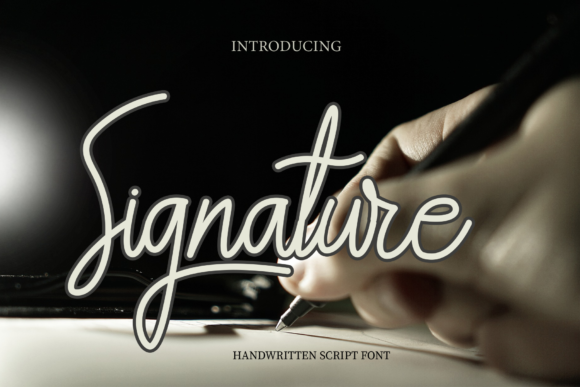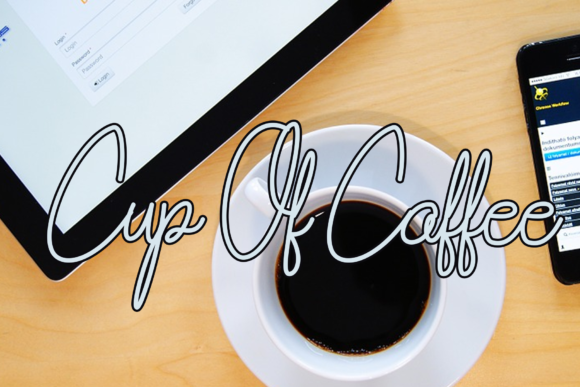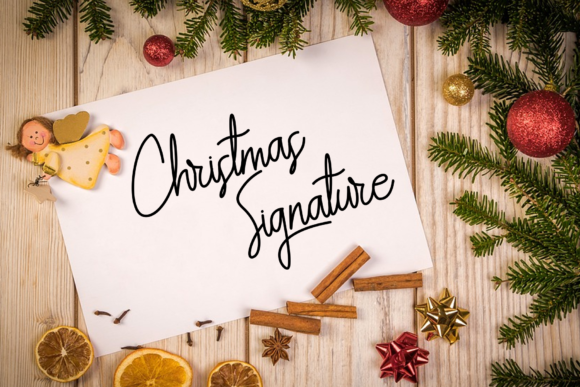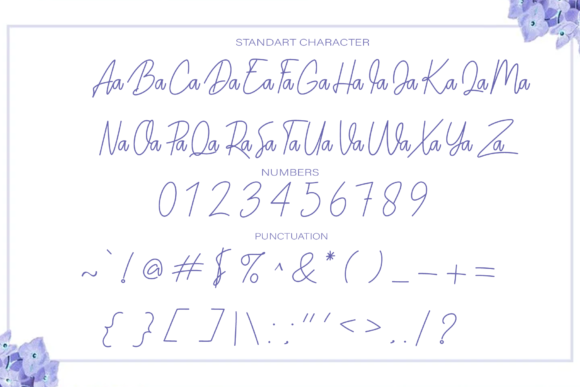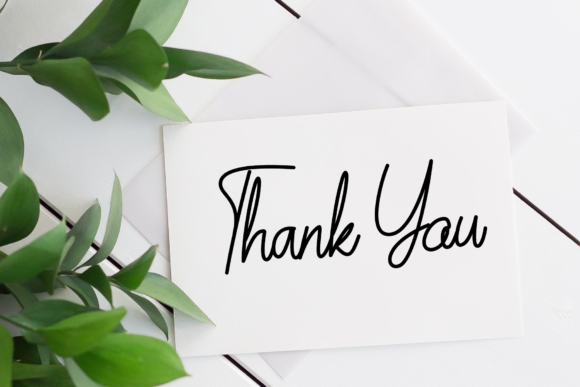
Signature is a beautiful light handwritten font with a unique feel and a stunning impact. It will add a luxury spark to any design project that you wish to create!